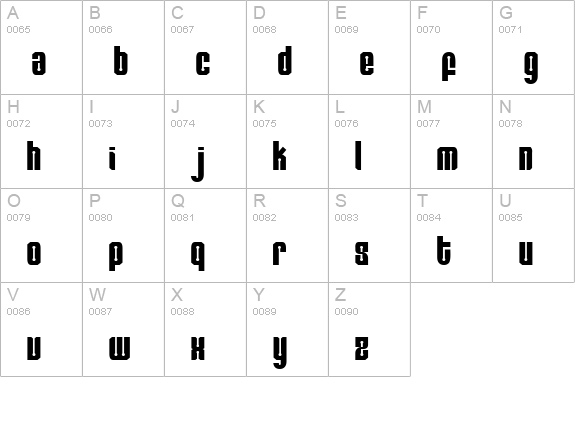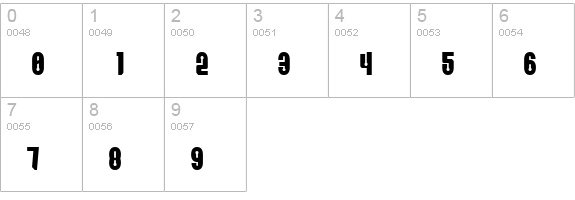
RemiHead font is a stunning display typeface that exudes elegance and sophistication. With its clean lines and bold letterforms, this font is sure to make a statement in any design project. Whether you're creating a logo, a poster, or a website, RemiHead font will add a touch of class and professionalism. What sets RemiHead font apart is not only its impeccable design, but also its availability. This font is free to download at FontsMarket.com, making it accessible to designers and creatives of all levels. You no longer have to worry about breaking the bank to get high-quality fonts for your projects. With RemiHead font, you can enjoy a premium typeface without spending a dime. The versatility of RemiHead font is another reason why it's a must-have in your font collection. It works effortlessly in both large and small sizes, ensuring readability and impact across various mediums. From headlines to body text, this font will captivate your audience and leave a lasting impression. Whether you're designing for print or digital, RemiHead font is a reliable choice. Its attention to detail and meticulous craftsmanship make it a timeless option for any design project. With its elegant curves and balanced proportions, this font brings a sense of sophistication to any layout. Don't miss out on the opportunity to enhance your designs with RemiHead font. Download it for free at FontsMarket.com and elevate your creative projects to new heights. With its premium quality and accessibility, RemiHead font is a true game-changer in the world of typography.